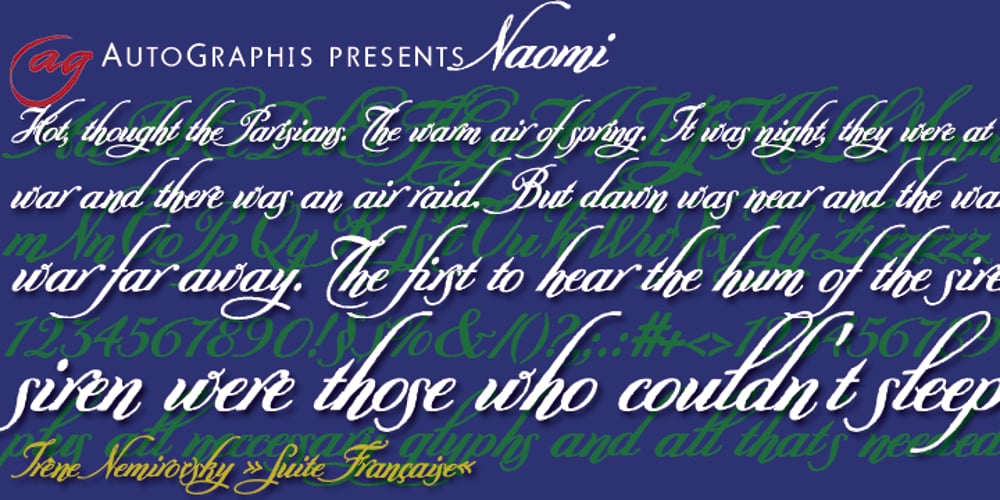
Naomi Font Family was designed by Gert Wiescher and published by Autographis. Naomi contains 1 styles and family package options. Naomi is a rough script with extremely long ascenders and descenders that make it elegant despite the roughness. The script is based on my script Nana but it cannot be mixed because Nana is not rough-edged.